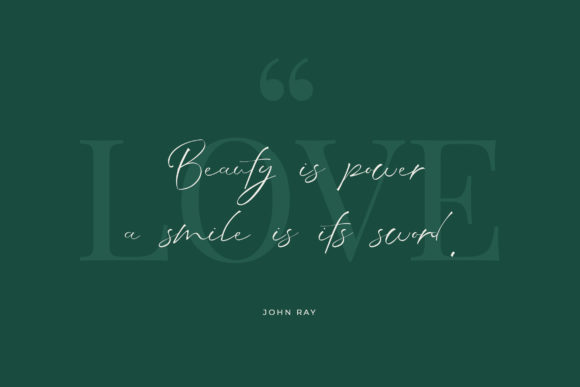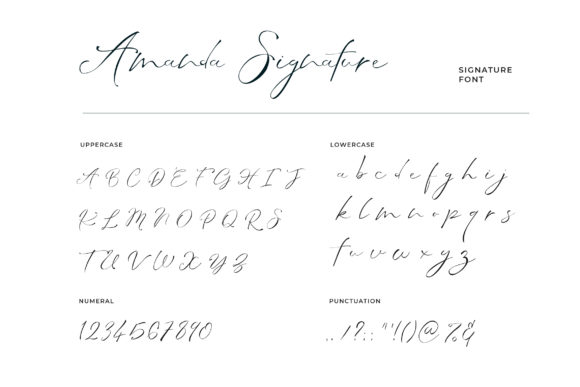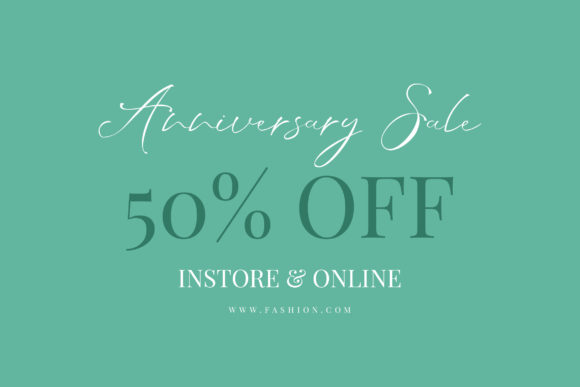
Introduction to Amanda Signature Font
Amanda Signature is a stylish and delicate script font.
It has a clean, thin and smooth vibe and it will be a hit for any design that you want to add it to .
Key Features of Amanda Signature Font
Why Choose Amanda Signature Font?
Amanda Signature Font offers exceptional quality and versatility, making it a valuable addition to your design toolkit. Whether you’re creating for personal projects or commercial use, Amanda Signature Font delivers professional results.